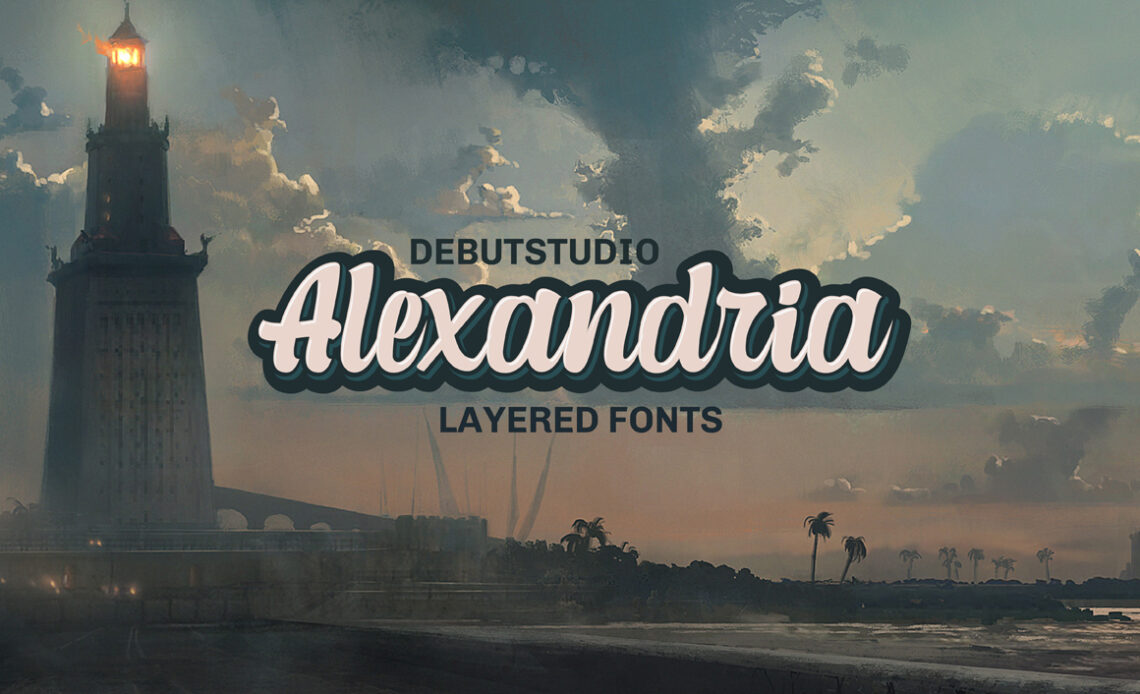
Unleash the allure of Alexandria Script Font, a captivating script family that dances across the digital canvas, leaving a trail of visual enchantment. Step into a world of elegance and charm, where every letter unfolds like a handwritten masterpiece, whispering tales of timeless beauty.
With its graceful curves and elegant terminals, Alexandria Script Font embodies the essence of sophistication. Its four distinctive styles — Regular, Italic, Bold, and Bold Italic — provide a versatile palette for your creative expressions, allowing you to craft designs that radiate personality and style.
Experience the allure of Alexandria Script Font's Regular style, where letters flow effortlessly, connecting seamlessly to form words that exude an air of effortless grace. Bask in the beauty of its Italic style, where each glyph sways gently, adding a touch of playful charm to your designs.
Embrace the power of Alexandria Script Font's Bold style, where letters stand tall and proud, commanding attention with their confident presence. Dive into the depths of its Bold Italic style, where strength and grace intertwine, creating a visual symphony that captivates the senses.
Let Alexandria Script Font ignite your imagination and transform your creative visions into tangible realities. Its versatility knows no bounds, lending itself effortlessly to a myriad of design endeavors, from enchanting logos that whisper luxury to captivating social media posts that demand attention.
Adorn your designs with the eloquence of Alexandria Script Font, and watch as they metamorphose into works of art, captivating audiences and leaving an indelible mark on their hearts. Experience the transformative power of beauty personified, and elevate your designs to new heights of elegance and sophistication.